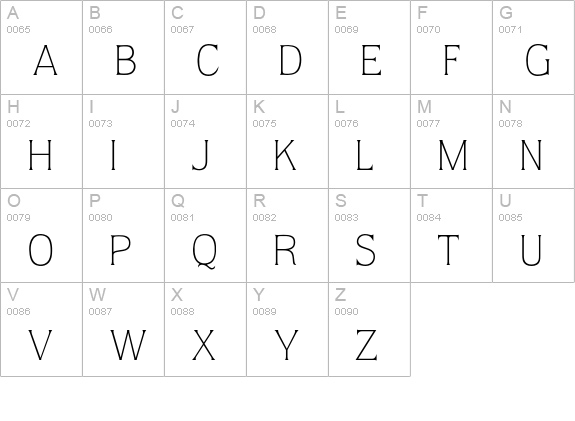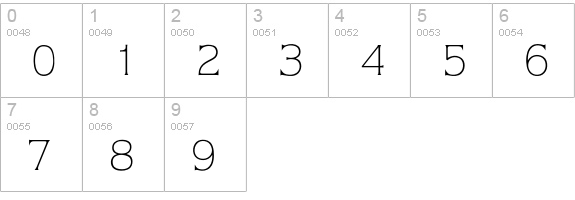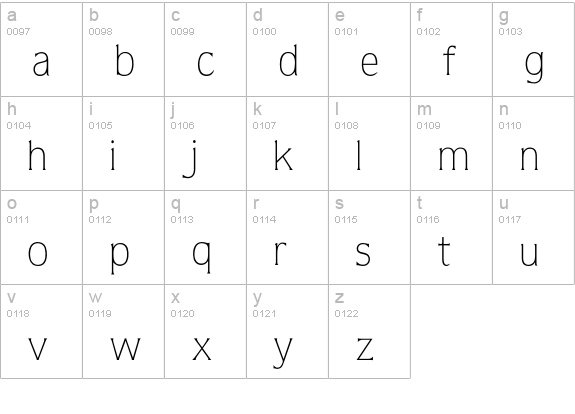
Taille Font Details
Taille font is a breathtaking typeface that combines elegance and modernity in a truly harmonious way. With its sleek lines and refined curves, this font is perfect for adding a touch of sophistication to any design project. Whether you are creating a logo, designing a website, or working on a branding campaign, Taille font will effortlessly elevate your work to the next level. What sets Taille font apart is not only its stunning aesthetic, but also its versatility. It can be used for both headlines and body text, allowing you to create a cohesive and visually appealing composition. The well-balanced letterforms ensure excellent readability at any size, making it suitable for both print and digital media. But what makes Taille font even more remarkable is that it is free to download at FontsMarket.com. Yes, you read that right - this exceptional typeface can be yours without any cost. FontsMarket.com is a trusted source for high-quality fonts, and they are offering Taille font as a free download to help designers like you unleash their creativity without any barriers. So go ahead and grab your copy of Taille font from FontsMarket.com. With its timeless beauty and the added advantage of being freely available, this font is a must-have for every design enthusiast. Elevate your projects, make a lasting impression, and let Taille font be your secret weapon in creating stunning visual experiences.